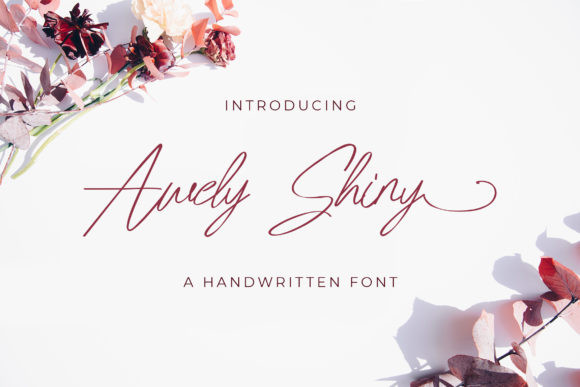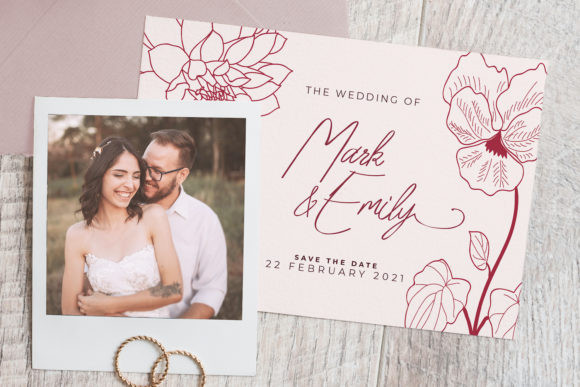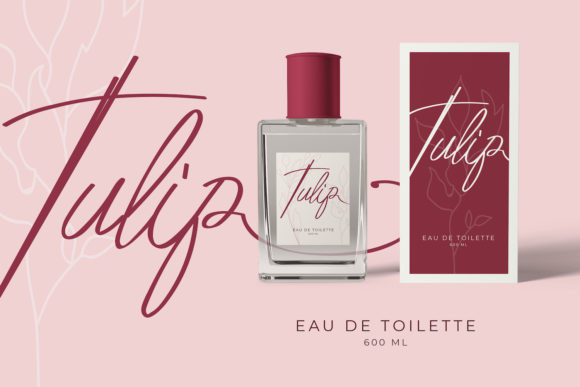
Awely Shiny Font
Awely Shiny FontAwely Shiny is a magical handwritten font carefully created with a touch of elegance. It looks lovely on wedding invitations, thank you cards, quotes, greeting cards, logos, business cards and every other design which needs a handwritten touch.
This font is PUA encoded which means you can access all of the glyphs and swashes with ease! It features a varying baseline, smooth lines, gorgeous glyphs and stunning alternates.